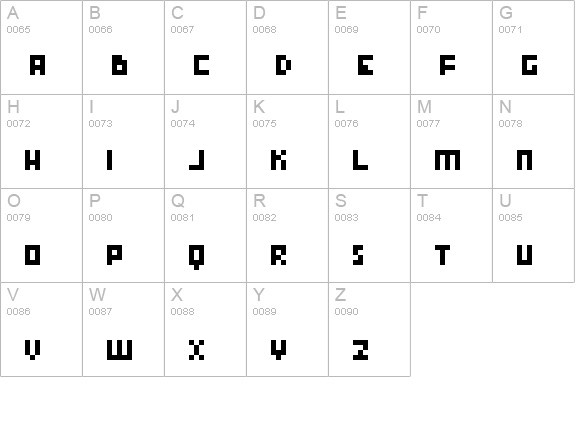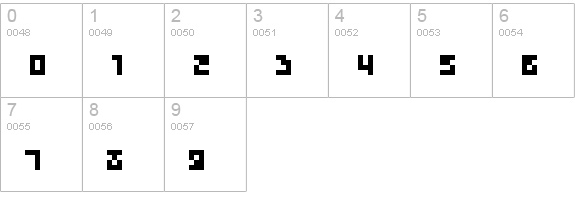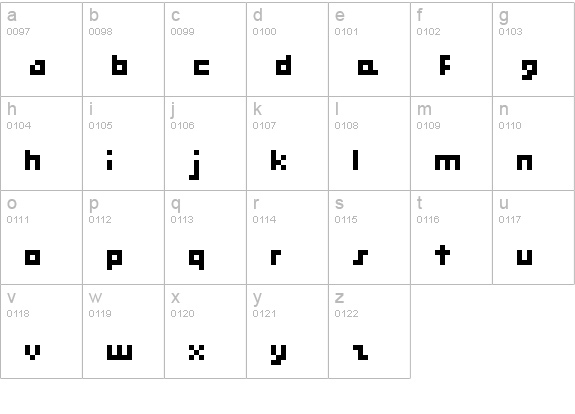
hooge 04_55 Font Details
Hooge 04_55 font is a modern and stylish typeface that exudes sophistication and elegance. With its clean lines and sleek design, this font is perfect for a wide range of design projects, from branding to editorial design. Its versatility makes it a great choice for both print and digital applications. Best of all, Hooge 04_55 font is available for free download at FontsMarket.com. This means that you can easily access this high-quality font without having to spend a dime. Whether you're a professional designer or just starting out, this font is a fantastic addition to your typographic toolkit. Download Hooge 04_55 font today and elevate your designs with its timeless appeal.